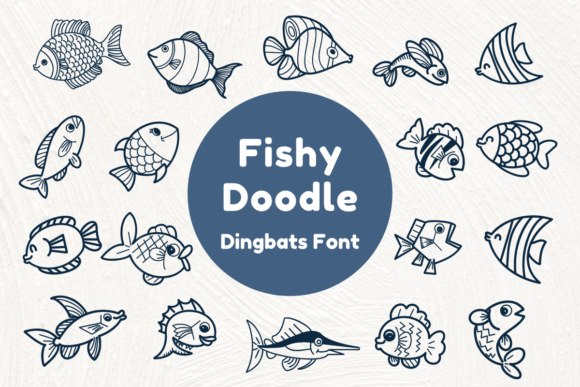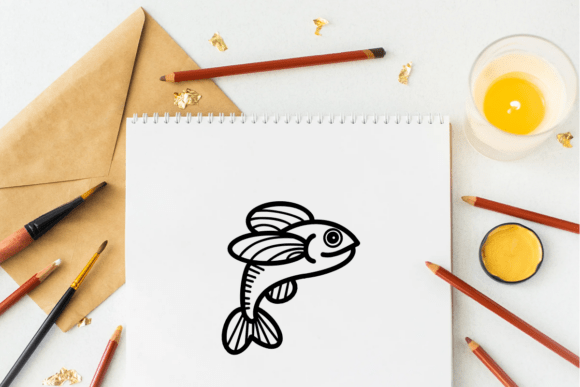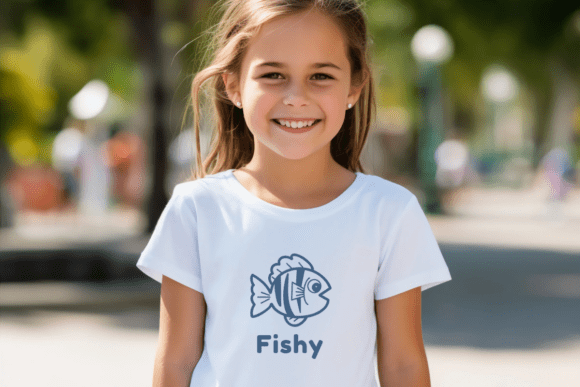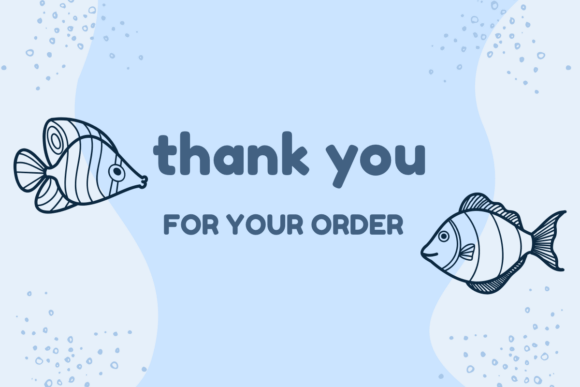
Fishy Doodle Font
About the Fishy Doodle Font
Step up your design game with Fishy Doodle Font, a font that exudes confidence and style. Dive into creativity with
Fishy Doodle
, a sea-inspired dingbats font full of quirky and cute fish illustrations. Ideal for children’s books, educational materials, party decor, or underwater-themed designs, these whimsical icons are ready to swim into your next project.
Fishy Doodle’s playful energy makes it perfect for projects needing a fun, approachable feel. It excels in children’s branding, invitations, short playful headlines, and packaging for products targeting a younger audience. Avoid using it for large bodies of text or UI elements where readability is paramount; its illustrative nature hinders legibility in continuous paragraphs.
Pairing Fishy Doodle with a clean sans-serif like Open Sans for body text creates a strong contrast, balancing the whimsical illustrations with clear, easily read information. Alternatively, a slightly more playful serif such as Playfair Display could add a touch of vintage charm while maintaining visual harmony.
The font’s overall personality is undeniably cheerful and light-hearted, making it a great choice for brands emphasizing fun and creativity. Consider it for projects where a sense of childlike wonder is desired, but remember to maintain visual balance through careful pairing with complementary fonts.
Fishy Doodle Font Usage Examples
Fishy Doodle Font Example